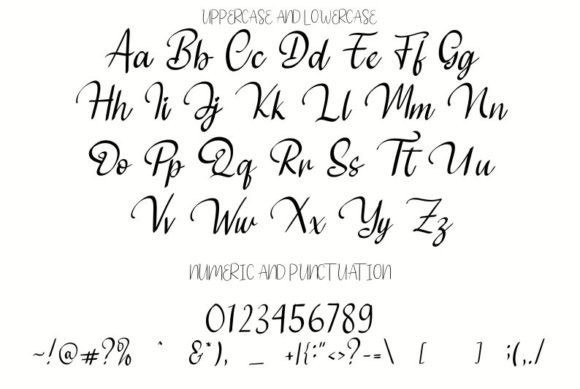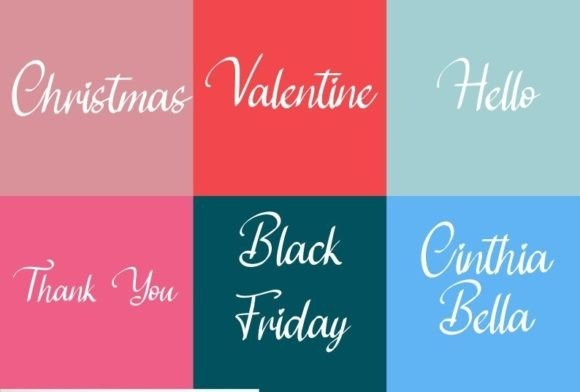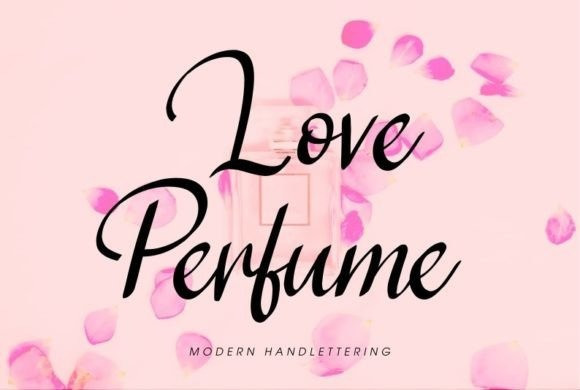
Love Perfume Font
Love Perfume Script Font is a charming handwritten script font. This gentle font will look gorgeous on a variety of design ideas. It will add a joyful and romantic touch to each of your projects!